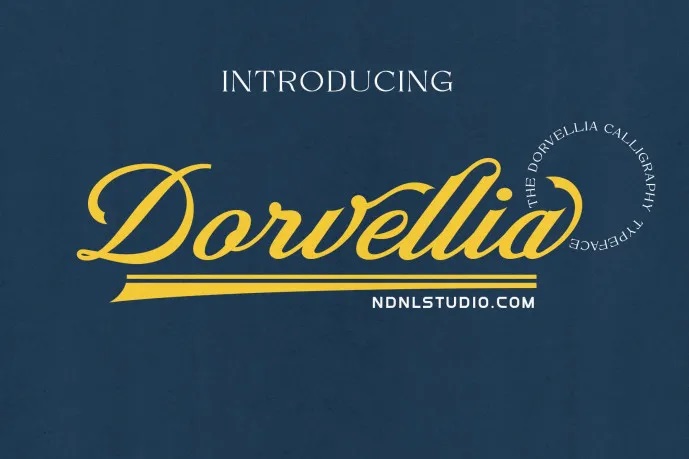
Dorvellia Font
Dorvellia is a script font that adds luxury, romance, and sophistication to your designs. Its smooth strokes and refined letters capture the charm of classic handwriting.
Dorvellia is perfect for wedding invitations, luxury branding, logos, beauty products, fashion, social media, packaging, and elegant editorial layouts. It includes stylish alternates and decorative details, so you can easily create something unique.
Dorvellia Calligraphy Font